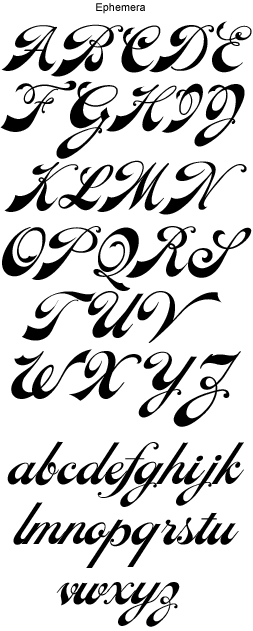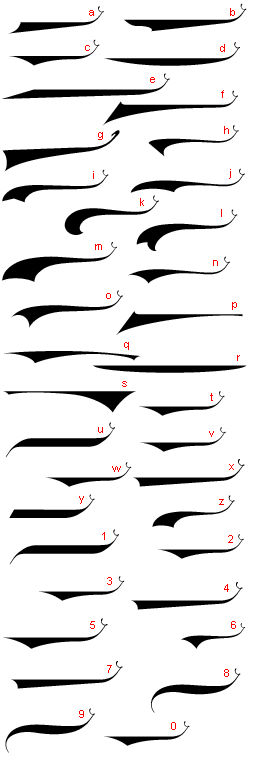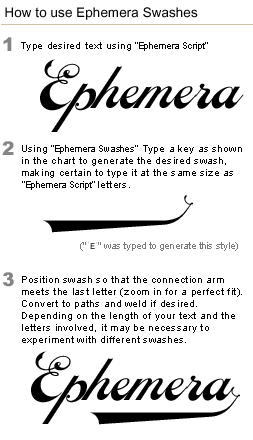
LHF Ephemera Old fashioned script inspired by letterheads from the late 1800's and early 1900's. Also Includes a variety of swashes to attach to the ends of the lowercase letters. Ephemera Swashes includes over 58 different swashes in place of characters, designed to attach to the ends of the Ephemera letters. (See instructions below for use).